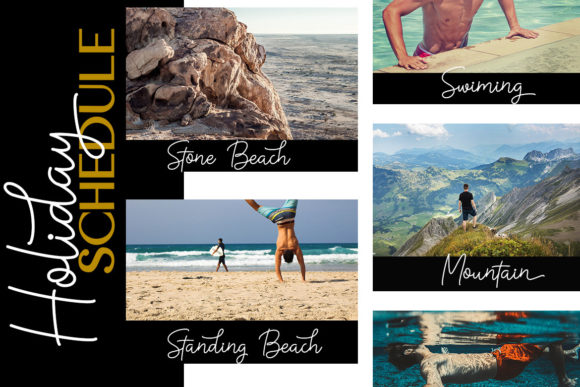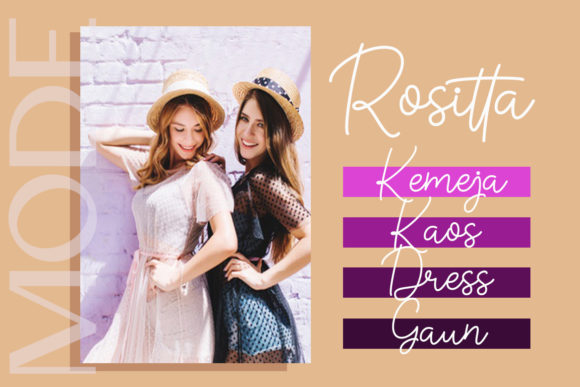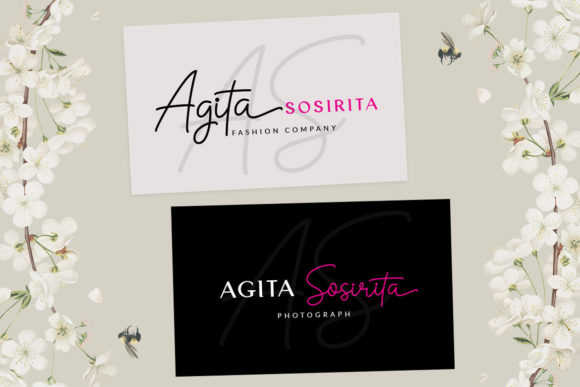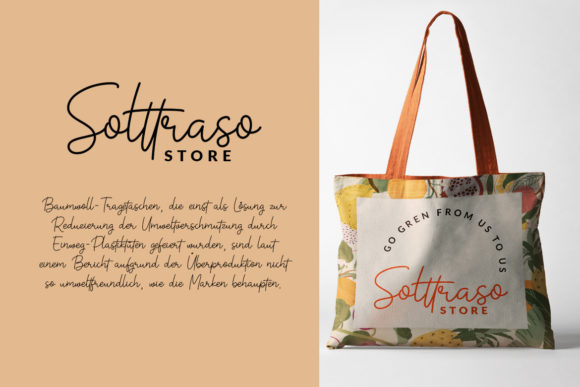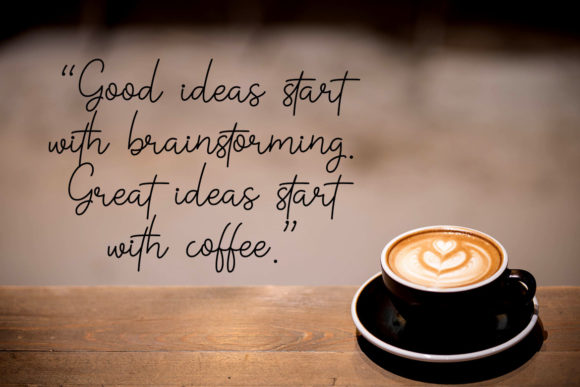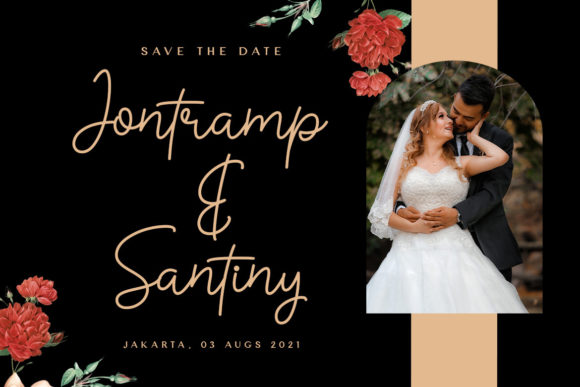
Introduction to Le Santos Font
As designers, we’ve all been there – staring at a blank page, trying to find the perfect font to match our creative vision. For some, it’s a matter of scrolling through endless options, while for others, it’s a quest to discover that one special font that makes their project truly shine. And then, it happens – you stumble upon a gem, a font that elevates your design to new heights.
One such gem is the Le Santos Font, a delicate script font that’s been crafted with love and care. With its unique combination of characters, this font is perfect for projects that demand a touch of romance and elegance. Whether you’re working on a wedding invitation, a birthday card, or a social media campaign, Le Santos Font is sure to add that extra oomph to your design.
What sets Le Santos Font apart is its high quality and PUA encoded nature, making it a valuable resource for designers. With a transparent background and free download, you can easily access and use all the glyphs and swashes to create stunning, one-of-a-kind designs.
Key Features of Le Santos Font
- High-quality design for a creative project, offering a unique and stylish touch.
- Includes a range of characters, including uppercase and lowercase letters, numbers, and special symbols.
- Designed to be highly legible, making it suitable for use in a variety of creative projects, from branding to publishing.
Honest Review: Le Santos Font
I recently had the chance to work with the Le Santos Font for a creative project, and I must say I was pleasantly surprised. This font is a design resource that truly delivers.
- High-quality design: The Le Santos Font boasts a clean and modern aesthetic, making it perfect for a variety of design projects.
- Transparent background: The font’s transparent background allows for seamless integration with any design element, giving your project a professional touch.
- Limited character set: The font’s character set is somewhat limited, which may be a concern for designers working on projects that require a wide range of characters.
- Not suitable for all projects: While the Le Santos Font is versatile, it may not be the best choice for projects that require a more formal or traditional tone.
Overall, I’m impressed with the Le Santos Font and would definitely recommend it as a design resource for creative projects. Its high-quality design and transparent background make it an excellent choice for designers looking for a reliable and stylish font.
Introduction to Le Santos Font
Le Santos Font is a high-quality design resource perfect for any creative project. Its transparent background makes it ideal for use in various digital design applications.
To get the most out of Le Santos Font, experiment with different font sizes, colors, and combinations. Use the font’s transparent background to create unique visual effects.
Common Use Cases for Le Santos Font
Le Santos Font is perfect for any creative project that requires a high-quality, elegant font. Some common use cases include:
- Web design projects
Yes, the Le Santos Font has a transparent background, making it perfect for use on complex backgrounds or with other design elements. This feature allows for greater flexibility and creativity in your design projects.